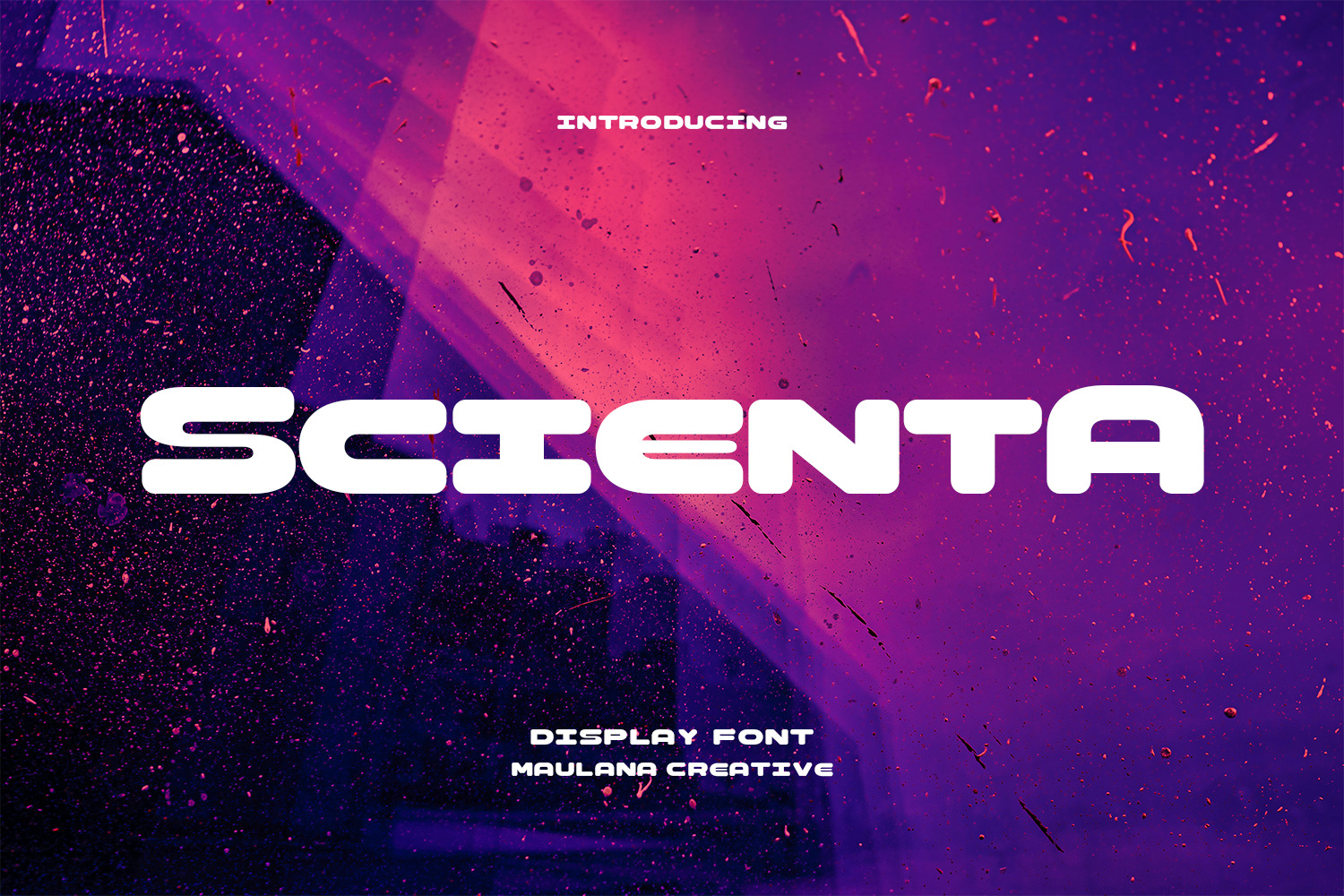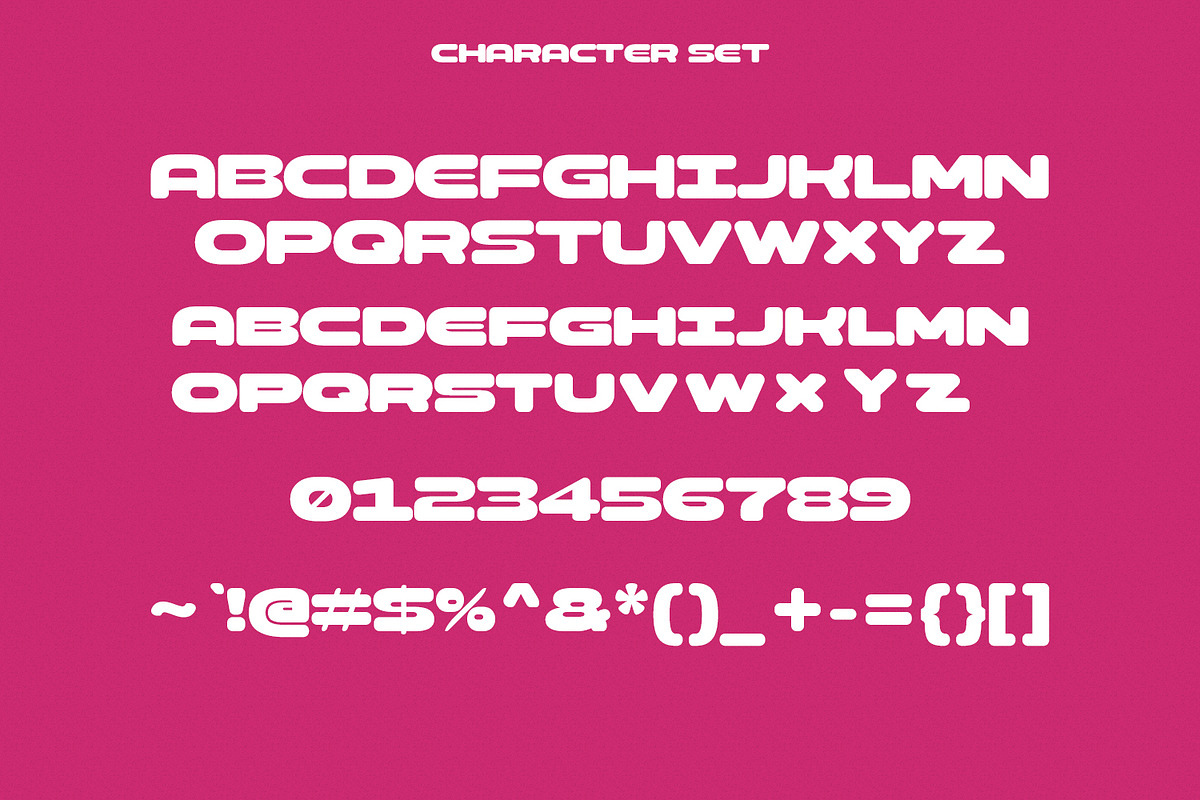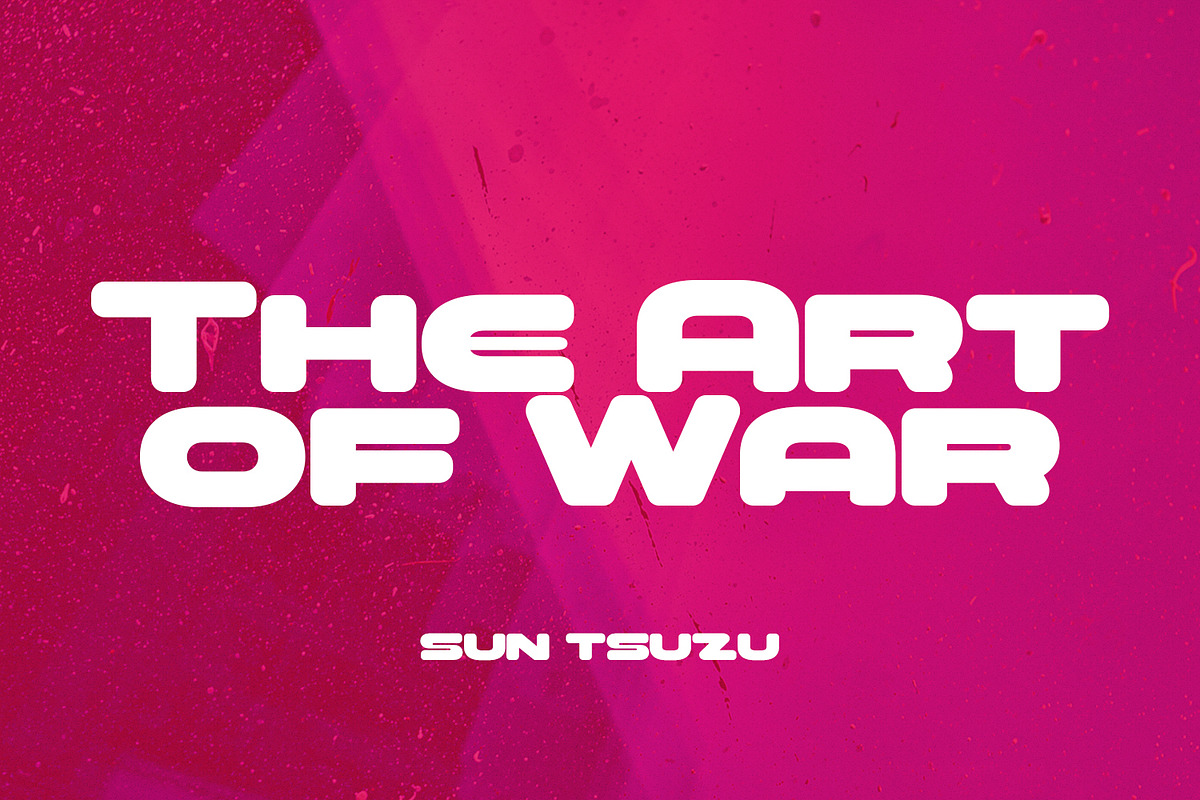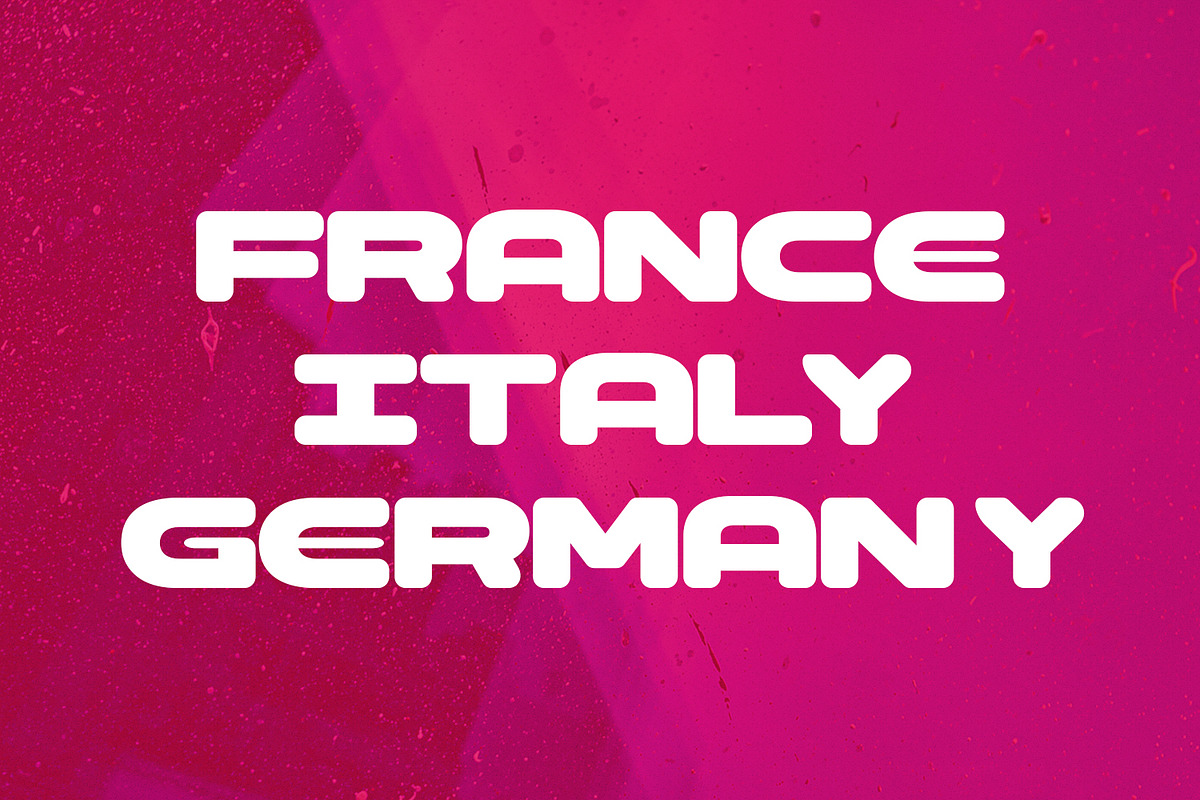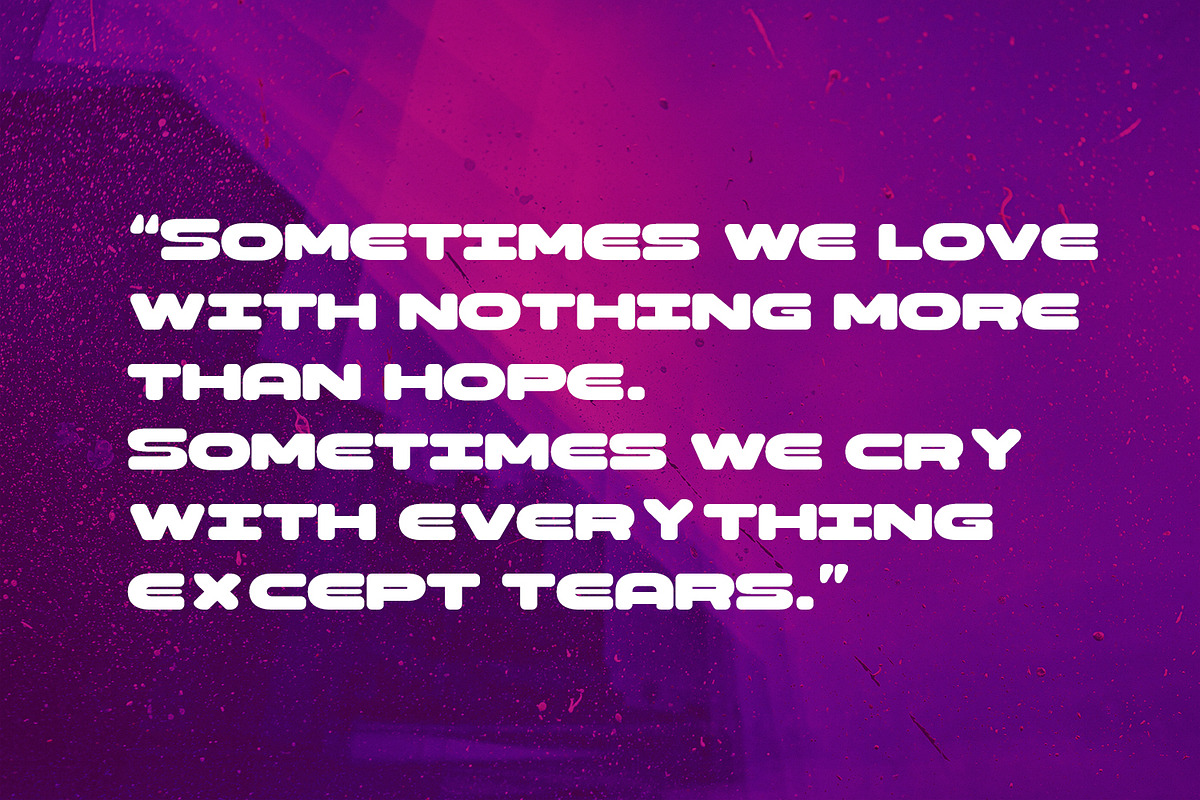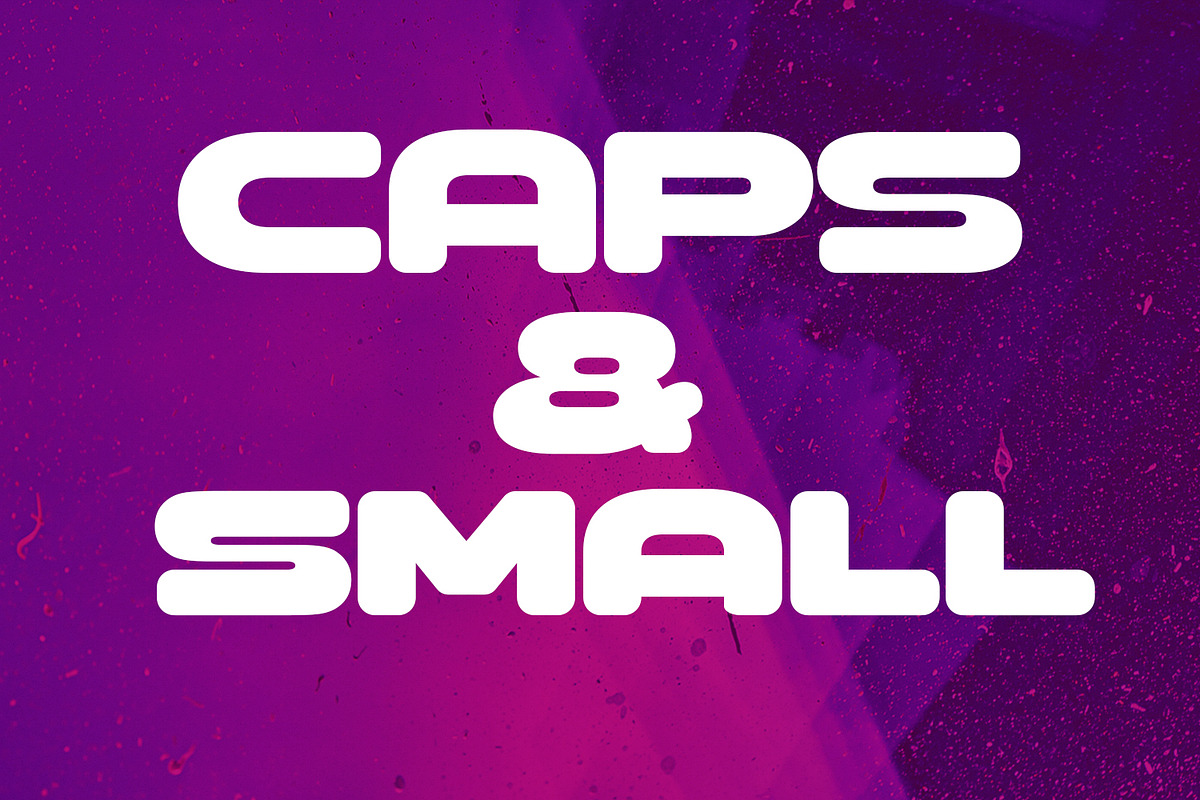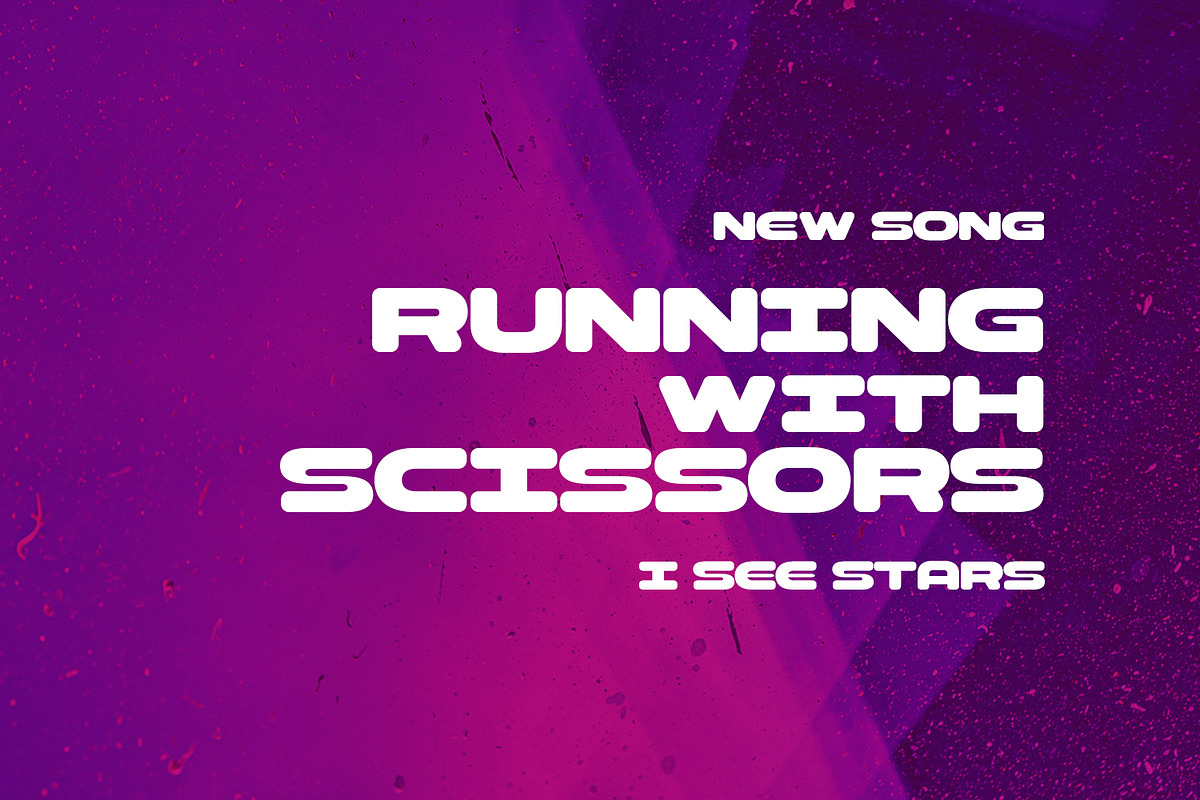
Scienta Display Font
Scienta is a modern Decorative expanded sans Display font. Bold stroke, fun character with a bit of ligatures and alternates. To give you an extra creative work. Scienta font support multilingual more than 100+ language. This font is good for logo design, Social media, Movie Titles, Books Titles, a short text even a long text letter and good for your secondary text font with script or serif. Make a stunning work with Scienta font.